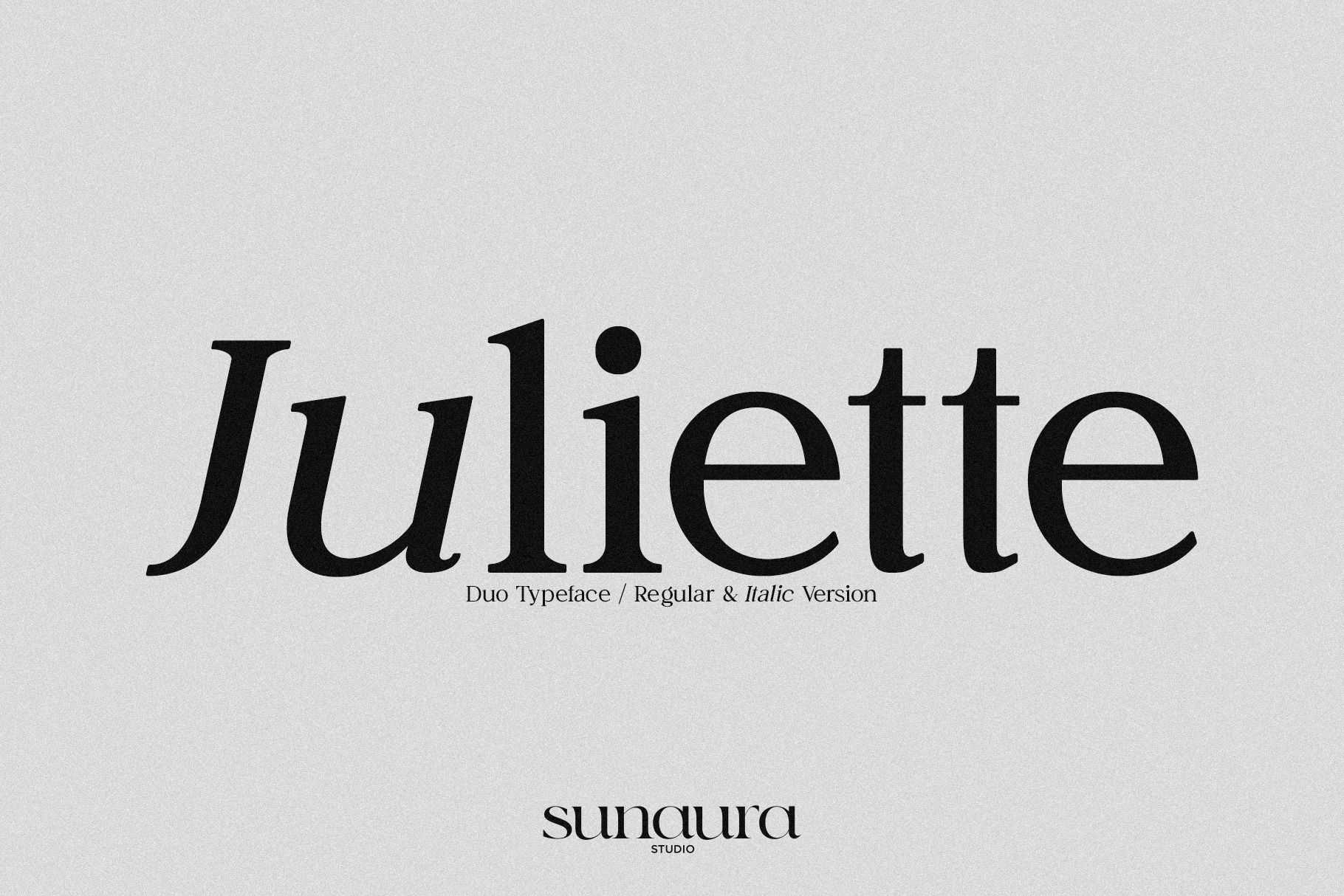
Juliette Duo Typeface
Juliette Duo is a stylish typeface family that includes both Regular and Italic versions, offering flexibility for a variety of design projects. The Regular style features clean, geometric letterforms that provide a perfect balance of modernity and readability, making it ideal for body text, headlines, and branding. The Italic version adds a touch of movement with its slanted strokes, making it perfect for emphasis, contrast, or adding personality to your designs. Together, the Regular and Italic styles of Juliette Duo work seamlessly together, providing a versatile and attractive solution for everything from editorial layouts to branding, invitations, and more. Whether for print or digital, Juliette Duo ensures your typography is clear, stylish, and visually engaging.